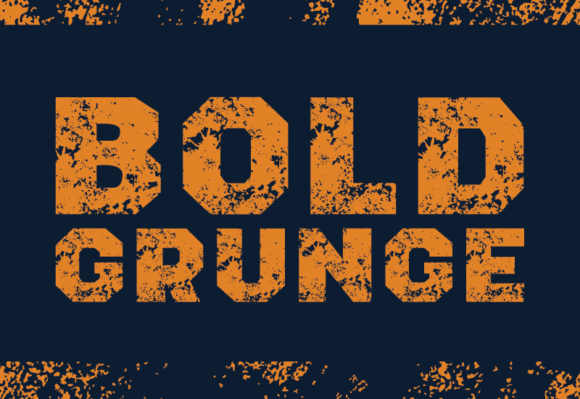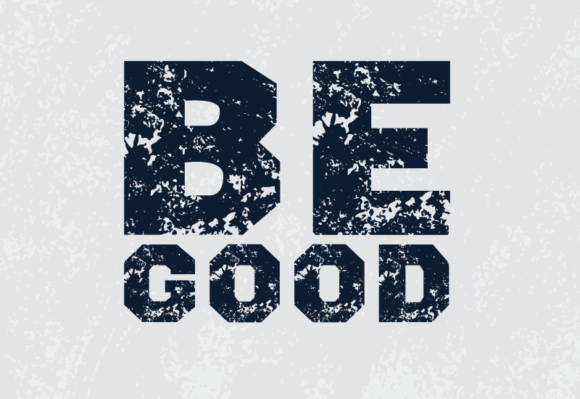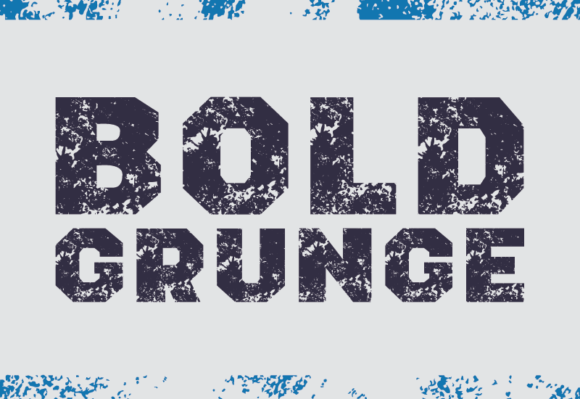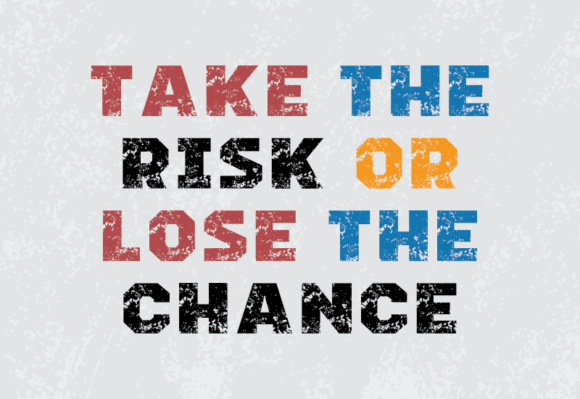
Bold Grunge Font
About the Bold Grunge Font
Step up your design game with Bold Grunge Font, a font that exudes confidence and style. Indulge in uniqueness with the ‘Bold Grunge’ sans-serif font that radiates distinction. Noted for its daring and distinctive aesthetic, Bold Grunge transcends the realms of simple bold typography. Its jagged lines bear a rustic texture, fostering a sense of resilience and defiance.
With its bold demeanor unafraid to stand apart, Bold Grunge provides an ideal textual contrast for ventures that relish audacious ventures. Imbued with a rebellious spirit, Bold Grunge transforms your visual narrative with edgy elegance.
Bold Grunge Font Usage Examples